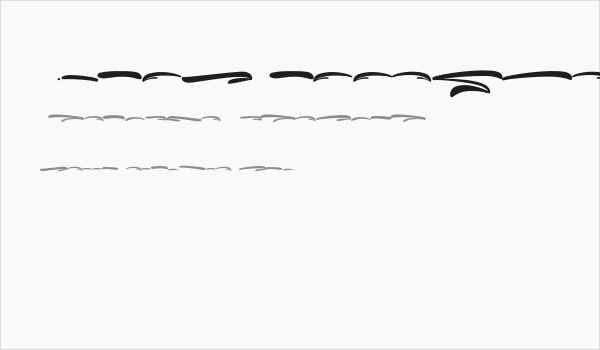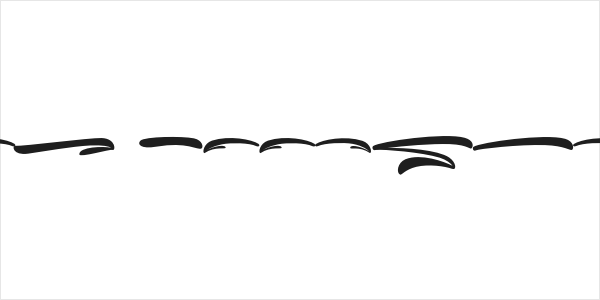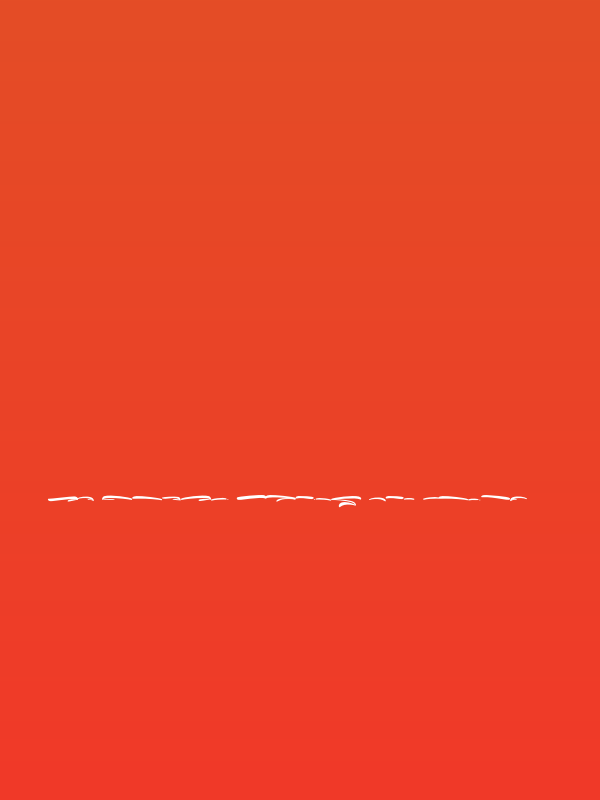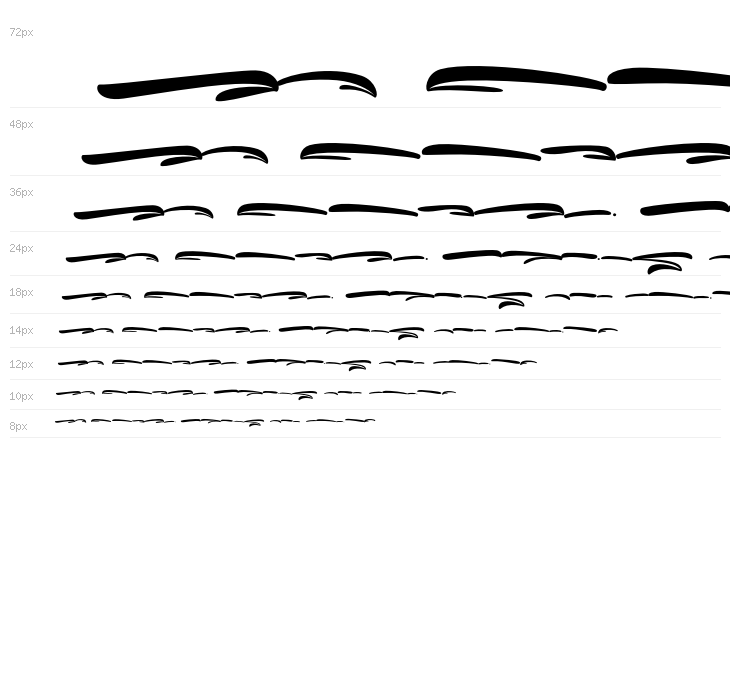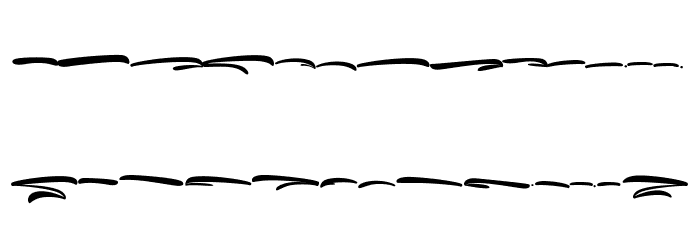
SwashPassengers Font
SwashPassengers Description
This font features a highly decorative and artistic style, characterized by elegant swashes and flourishes that give it a unique and sophisticated appearance. The letters are crafted with smooth, flowing lines that create a sense of movement and grace. The overall design is reminiscent of calligraphy, with an emphasis on ornate details and a luxurious feel. The font's aesthetic is both classic and modern, making it versatile for various design applications. Its intricate design elements make it ideal for projects that require a touch of elegance and creativity.
| Proposed Projects | Ideal for wedding invitations, luxury branding, greeting cards, and artistic posters. |